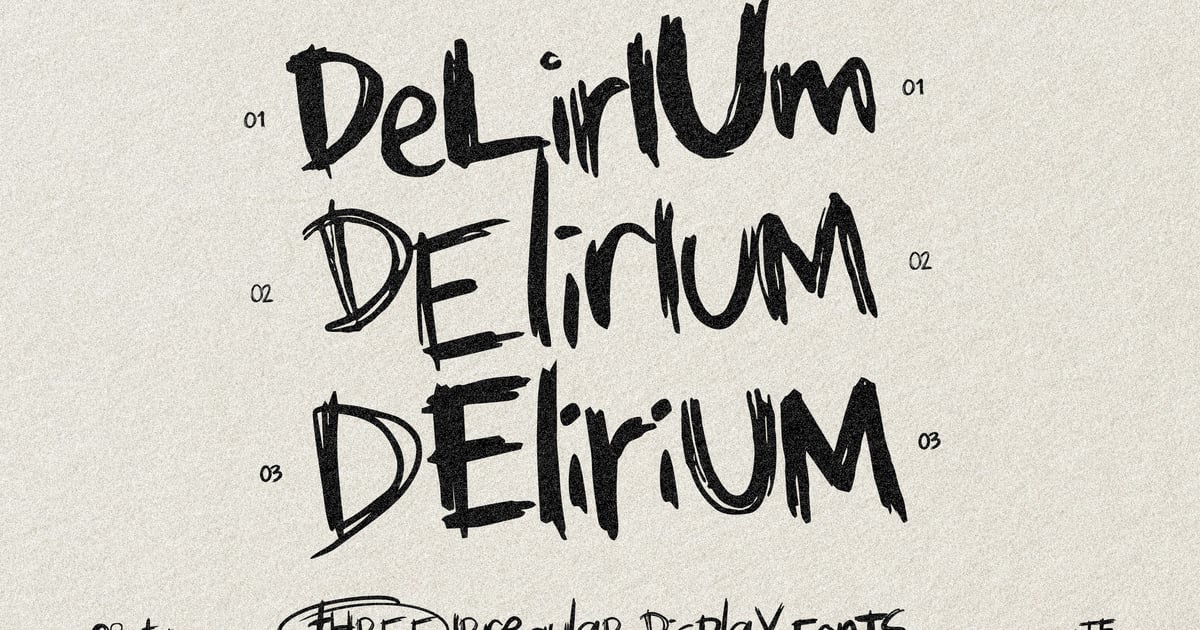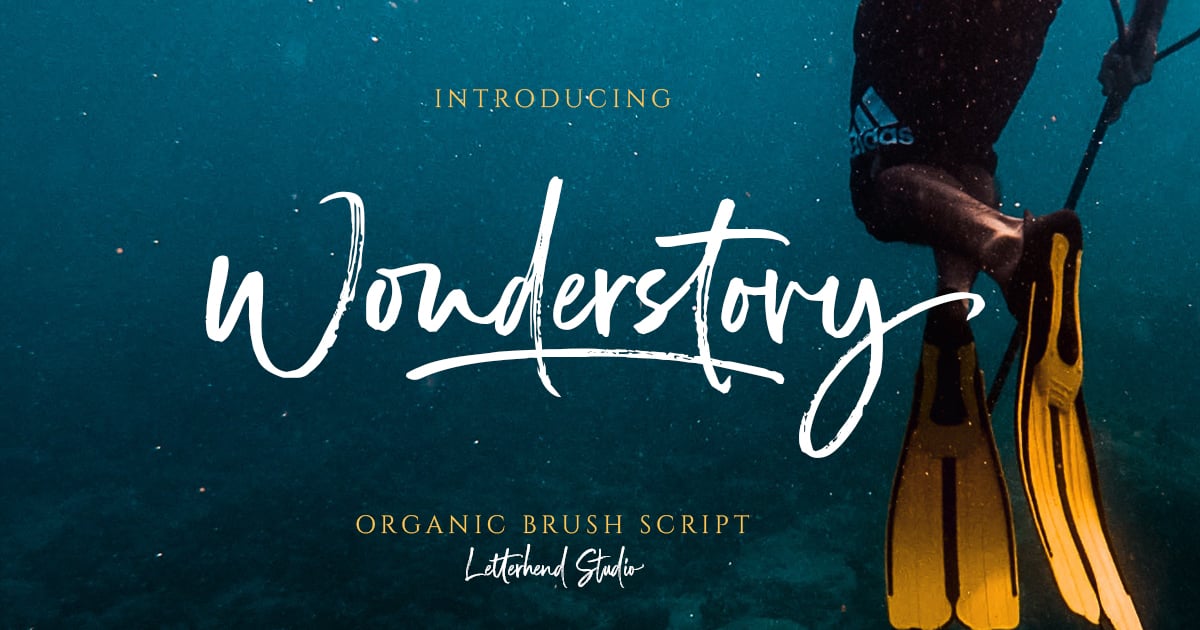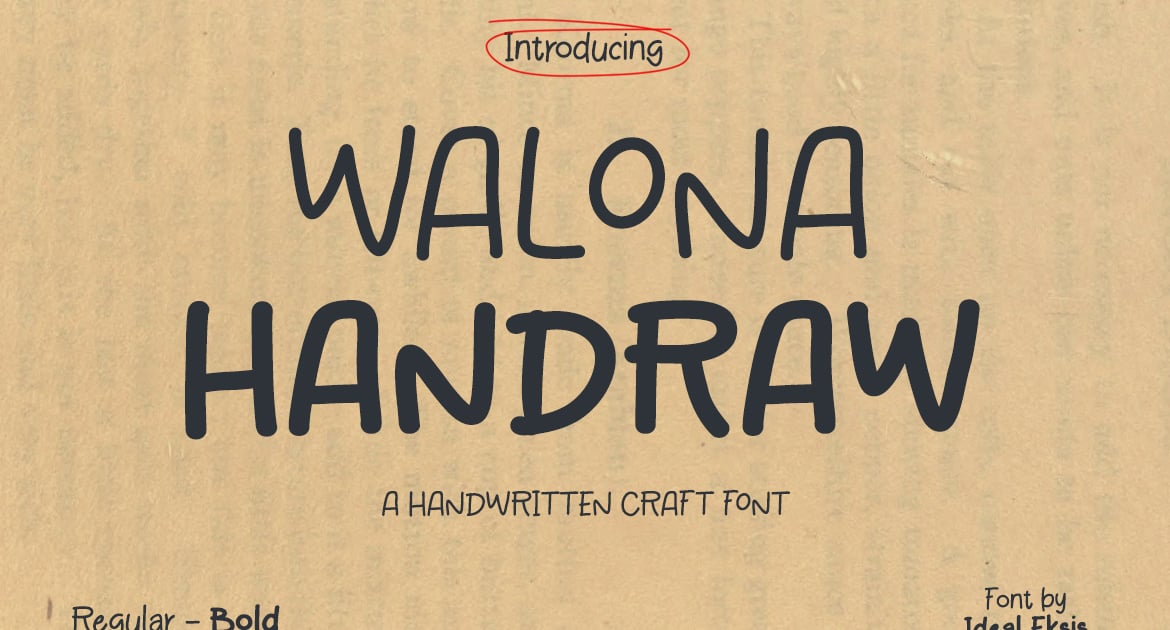
There’s a version of “handmade” that costs forty thousand dollars in packaging redesigns and a focus group’s worth of opinions, and there’s a version that costs the price of one font license. Hand-drawn fonts are how a lot of the best craft brands quietly pull off the second one. A jar of jam, a bar of soap, a bag of single-origin beans — none of it needs an actual person with a paintbrush standing over the label if the typeface already looks like one was there.
That’s worth sitting with before you start scrolling: a hand-drawn font isn’t decoration, it’s a stand-in for a human, and shoppers can tell the difference between a font that’s faking warmth and one that’s actually earned it.
How We Chose These Hand-Drawn Fonts
We pulled candidates from marketplaces like Envato’s script and hand-lettered font catalog and judged every one against the same four rules, in this order. Authentic handmade character beats a digital imitation of handwriting every time — a font that’s obviously tracing the idea of a human hand doesn’t count. A hand-drawn font that can’t stay readable in real branding use, on a label or a business card or a sign, isn’t a contender no matter how charming it looks in a preview image. Range matters too: enough alternates and ligatures that repeated letters don’t look copy-pasted across a brand name. And versatility counts for a lot, since a font that only works at logo size but falls apart the moment it hits a hang tag or an ingredients panel isn’t actually doing its job.
Inkquest – Rough Vintage Hand Drawn Slab Serif
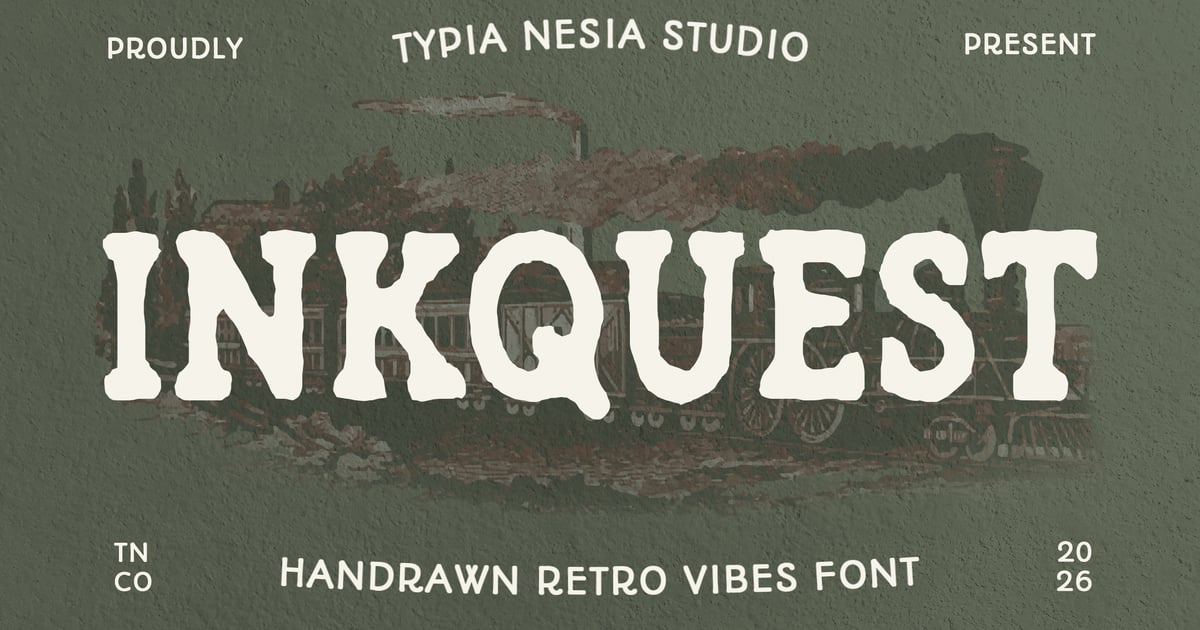
Inkquest channels the weathered charm of vintage print with bold slab serifs and deliberately distressed edges. Its rough-hewn texture evokes old letterpress posters and hand-painted signage, making it ideal for retro branding, brewery labels, and nostalgic editorial projects. Among hand-drawn fonts, it stands out for combining sturdy structure with organic imperfection. The typeface includes uppercase and lowercase characters, numerals, and punctuation. Perfect for designs that need authentic vintage grit without feeling overly precious, it delivers character-rich typography with timeless appeal.
Art Plot Bold Hand Drawn Font
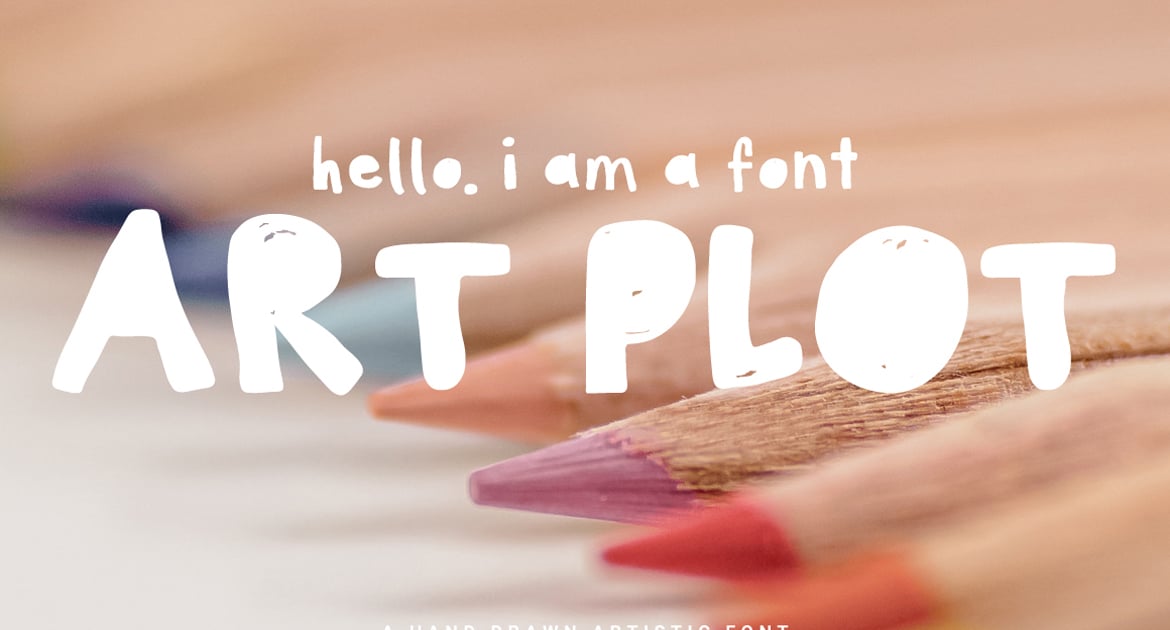
Art Plot Bold Hand Drawn Font brings an energetic, artistic sensibility to display typography with its confident strokes and deliberately imperfect lettering. The bold weight ensures excellent readability while maintaining that authentic sketched quality that makes hand-drawn fonts so appealing for creative projects. It works beautifully for poster designs, album artwork, editorial headlines, and branding that needs personality without sacrificing impact. The typeface captures the spontaneity of marker or brush work, making it ideal for projects seeking an approachable yet distinctive voice. Files are provided in standard font formats for easy installation across design applications.
Hands Brush – Strong Urban Brush
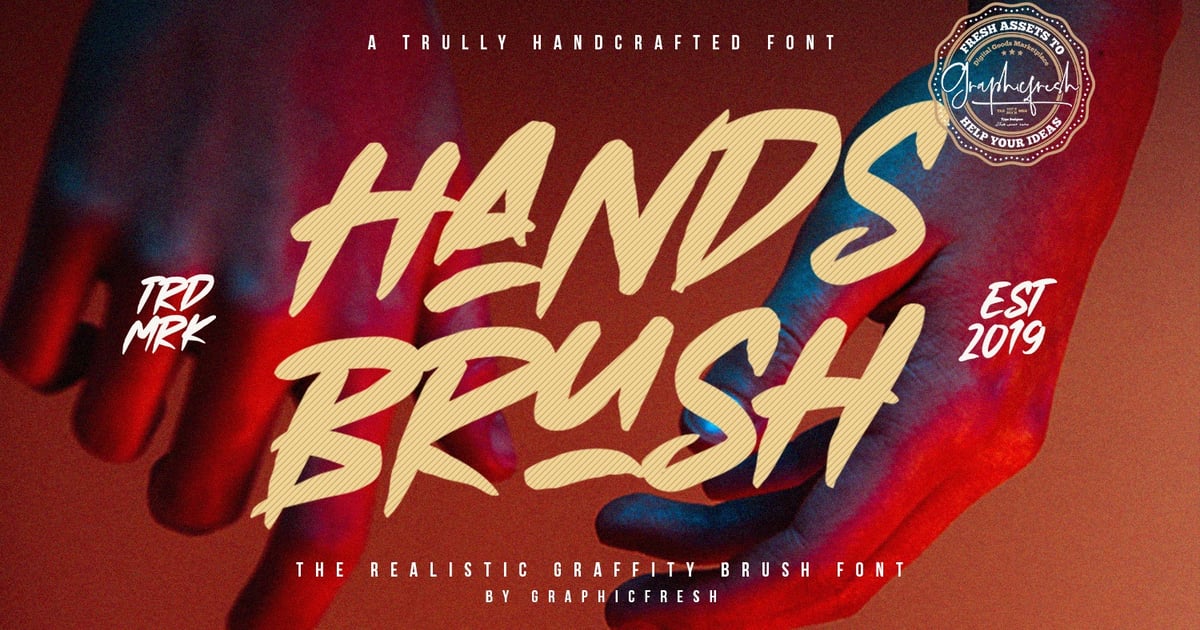
Hands Brush – Strong Urban Brush delivers bold, energetic strokes with authentic street-art character. This typeface captures the raw, expressive quality of hand-painted lettering, making it ideal for album covers, event posters, apparel graphics, and edgy branding projects that need impact. Among hand-drawn fonts, it stands out for its unapologetic confidence and urban aesthetic. The brushy texture adds organic movement while maintaining strong readability at display sizes. Perfect for designers seeking that authentic, gritty feel without sacrificing legibility, it brings attitude to headlines and creative projects demanding visual punch.
Sketch Hand Drawn Font
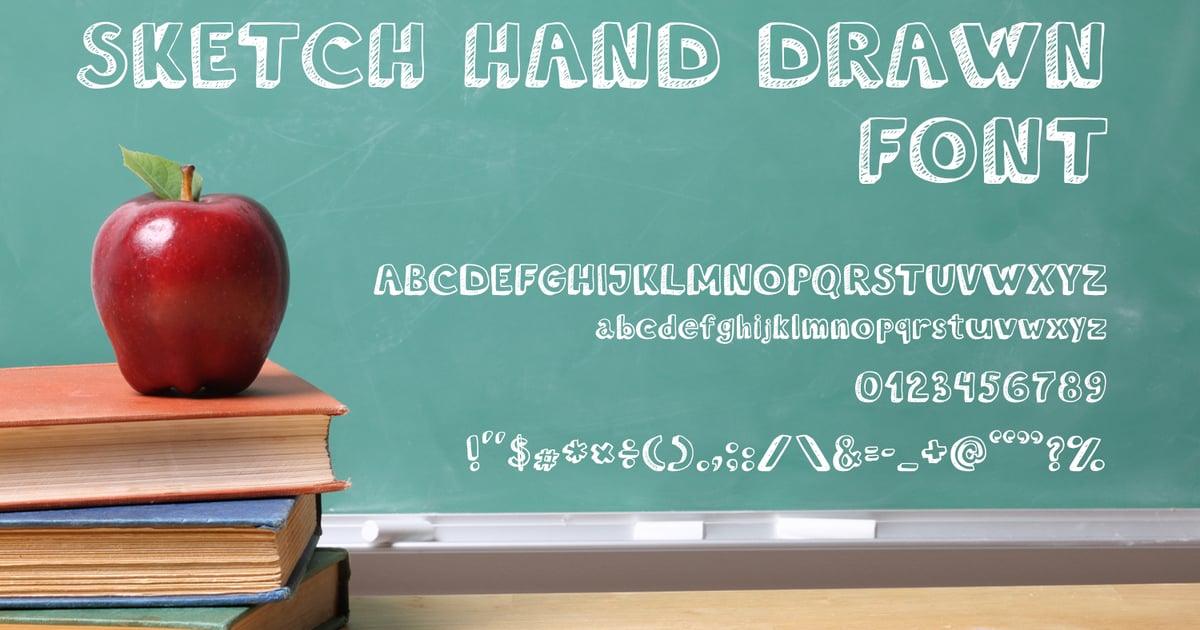
Sketch Hand Drawn Font captures the authentic, spontaneous energy of pencil-on-paper lettering with its organic strokes and natural imperfections. The design embraces a casual, artistic aesthetic that works beautifully for creative projects like posters, branding, packaging, and editorial layouts seeking an approachable, human touch. Among hand-drawn fonts, this one stands out for its genuine sketch-like quality that adds personality without sacrificing readability. It includes standard alphanumeric characters and punctuation, delivering in accessible font formats ready for both print and digital applications where a relaxed, illustrative vibe enhances the message.
Huisea – Hand Drawn Fonts
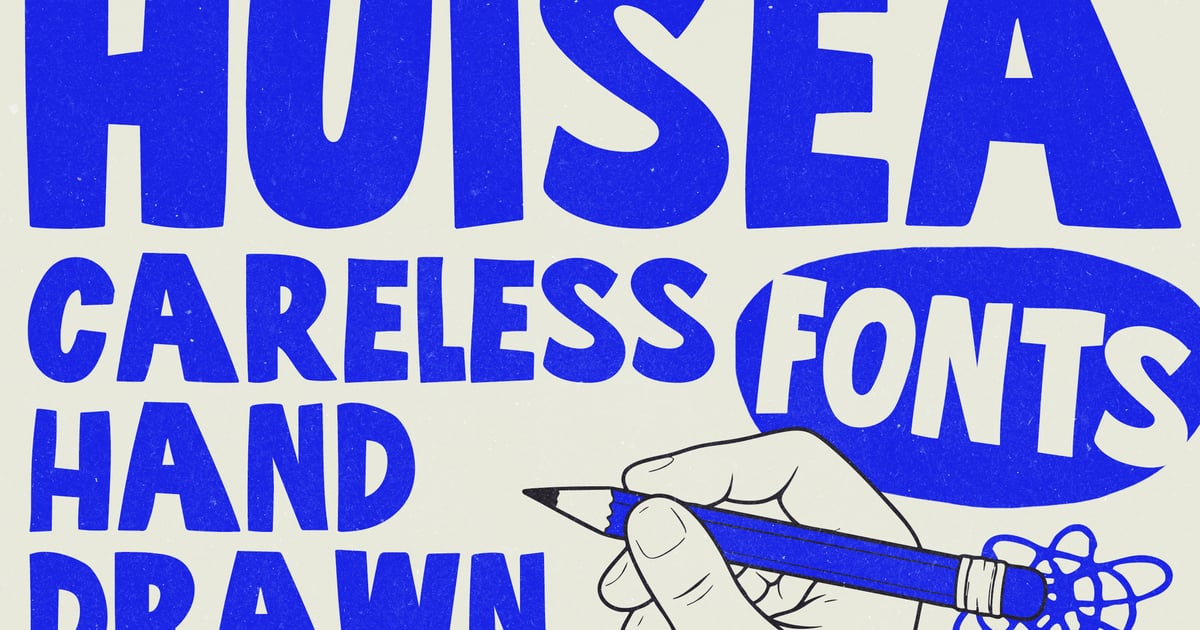
Huisea brings an organic, sketched aesthetic with confident brushwork and bold personality. Its casual letterforms carry a playful energy that works beautifully for packaging, poster headlines, and creative branding projects where a human touch makes all the difference. Among hand-drawn fonts, it stands out for its strong visual presence and authentic crafted feel. The family includes both regular and bold weights, giving designers flexibility to establish hierarchy while maintaining stylistic consistency. With support for multiple languages and complete character sets, Huisea delivers both charm and practicality in standard font formats.
Comedik Hand-Drawn Playful
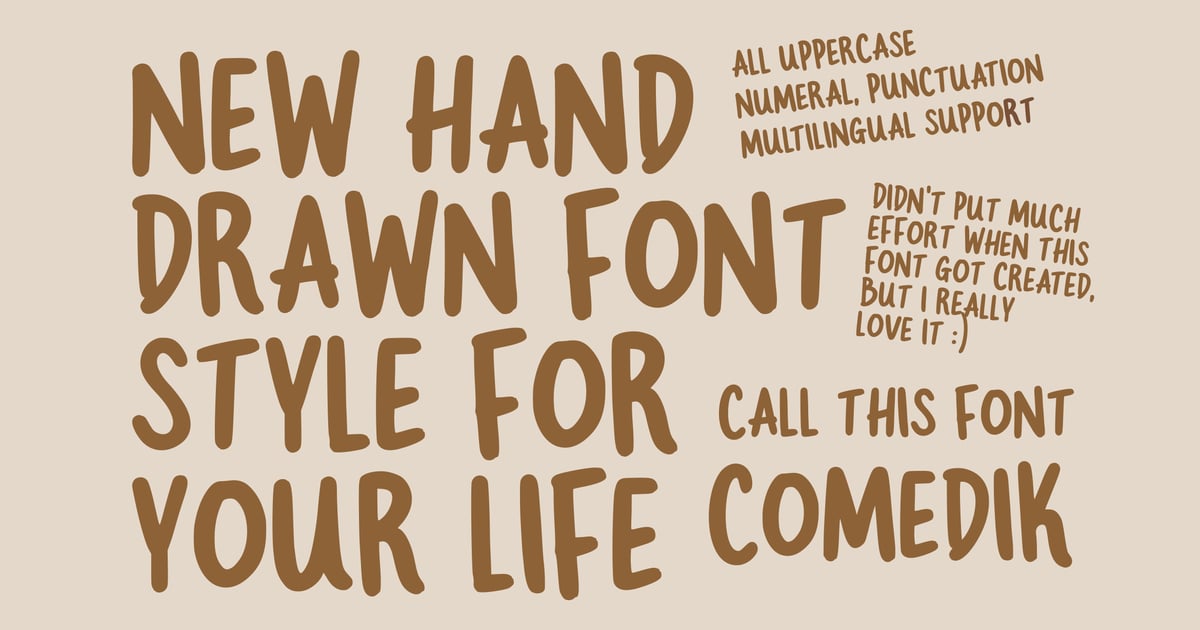
Comedik Hand-Drawn Playful brings an energetic, sketch-like quality to display typography with its loose, expressive letterforms. The design captures the spontaneity of marker strokes and doodles, making it ideal for children’s books, comic projects, casual branding, and creative social media graphics. Among hand-drawn fonts, it stands out for its approachable personality and deliberately imperfect aesthetic that feels authentic rather than overly polished. The typeface works particularly well for headlines, posters, and packaging that need a friendly, informal voice. Standard file formats ensure compatibility across design applications.
Handodle – A Hand Scribble Display Font
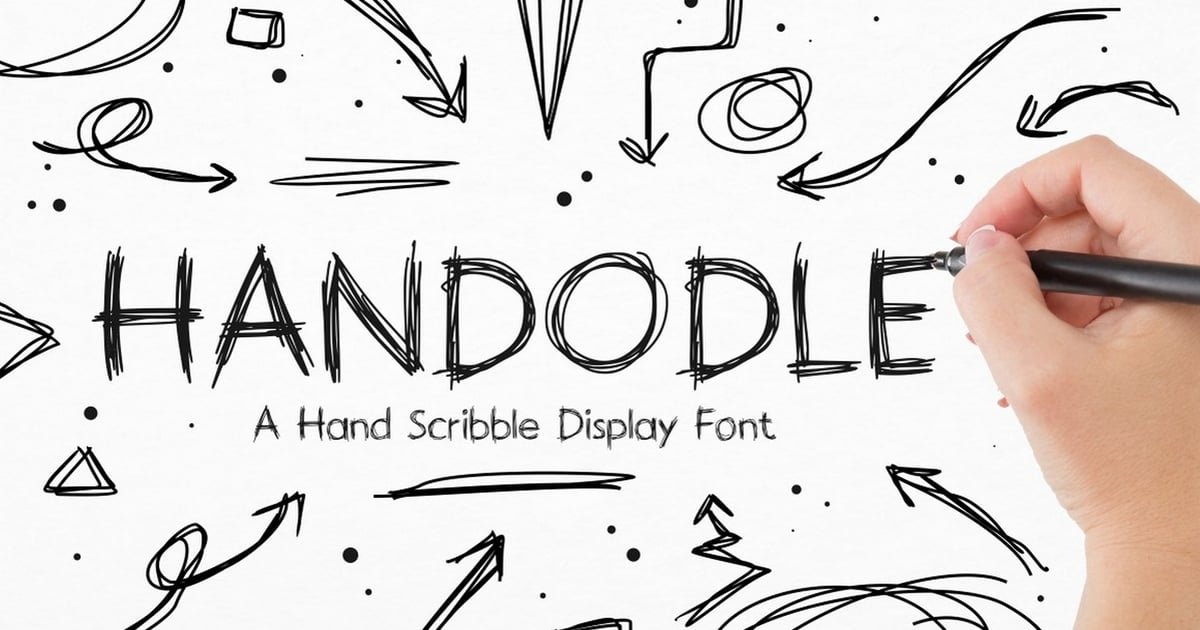
Handodle brings an authentic scribbled aesthetic to display typography, capturing the spontaneous energy of quick pen sketches. Its irregular strokes and playful personality make it ideal for creative projects that need an informal, approachable voice—think children’s book covers, casual branding, poster designs, and social media graphics. Among hand-drawn fonts, this one stands out for its genuine handwritten texture that feels unpolished in the best way. The typeface works beautifully for headlines and short text where character and charm matter more than formality. It’s particularly effective for creative studios, craft businesses, and any project seeking that personal, human touch.
Start by figuring out which of the four groups above matches the story your brand is trying to tell — considered and signature-like, heritage and worn-in, warm and personal, or bold and textured — and choose from within that group rather than picking on looks alone. Get that part right, and the “premium” part takes care of itself.